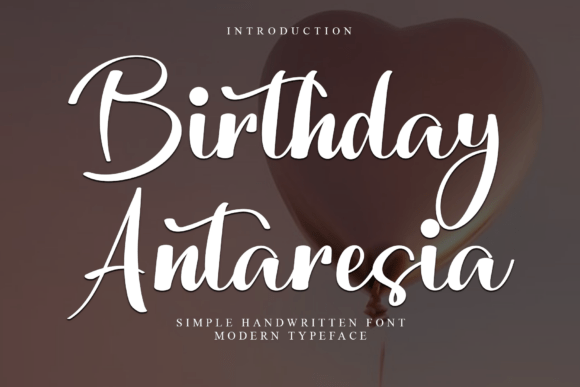
The Birth of a Perfect Font: My Encounter with Birthday Antaresia
I’ll never forget the time I was working on a birthday invitation project for a close friend. I had all the design elements ready – the colors, the graphics, the overall aesthetic – but I was stuck on finding the perfect font. I wanted something that exuded warmth, friendliness, and playfulness. That’s when I stumbled upon Birthday Antaresia, a casual and creative font that instantly resonated with my design vision.
A Font that Feels like a Warm Hug
Birthday Antaresia is a font that truly feels like a warm hug. Its round, playful strokes create a relaxed and approachable feel, making it perfect for personal projects, invitations, and social media graphics. The font’s charming, hand-drawn aesthetic adds a fun and unique touch to any design, making it an excellent choice for designers, crafters, and creative hobbyists.
What I Love About Birthday Antaresia ✨
- ✅ The font’s playful and casual vibe makes it perfect for creative projects.
- ✅ The hand-drawn aesthetic adds a unique touch to any design.
- ✅ The font is easy to read and works well for both headings and body text.
- ⚠️ The font may not work well for very formal or professional projects, as it has a distinctly casual feel.
- ⚠️ Some users may find the font a bit too playful or childish for certain designs.
The Story Behind Birthday Antaresia
Birthday Antaresia was designed with the intention of creating a font that feels like a warm hug. The designer, inspired by the joy of celebrating birthdays and special occasions, aimed to create a font that exudes warmth, friendliness, and playfulness. The result is a font that has become a favorite among designers, crafters, and creative hobbyists.